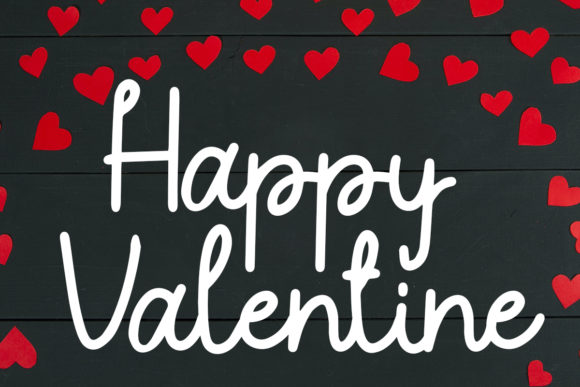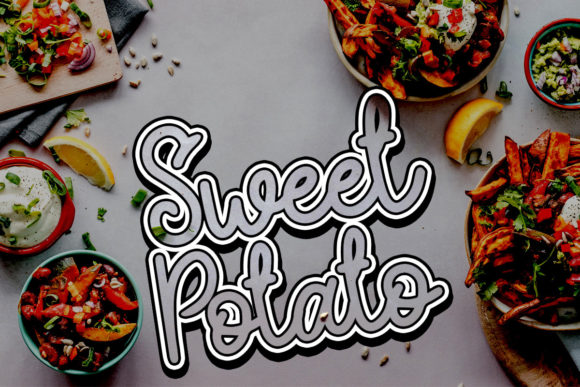
Bubble Font
db-ku.com - Script & Handwritten -- Bubble is a handwritten font designed to be soft and dynamic, and it is also set with very neat kerning.